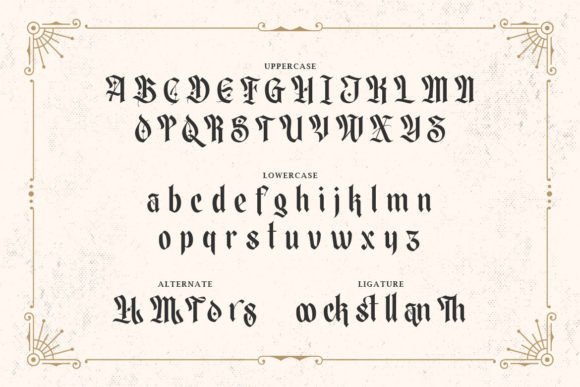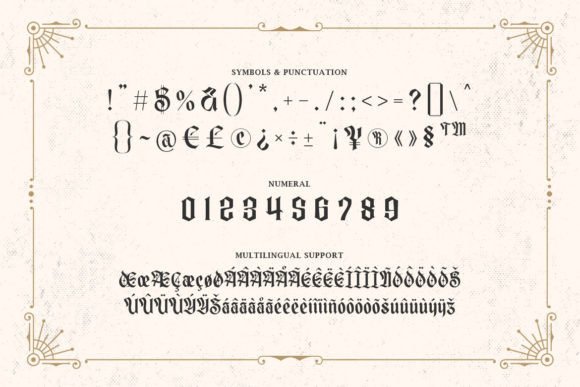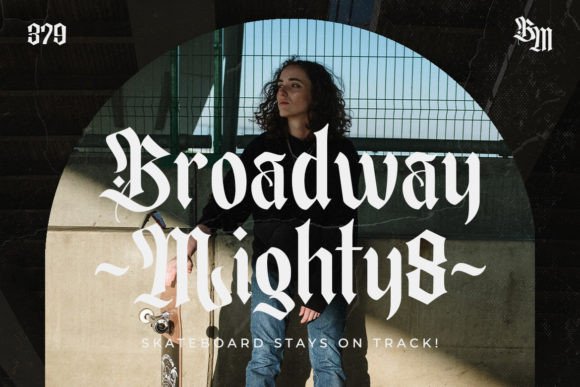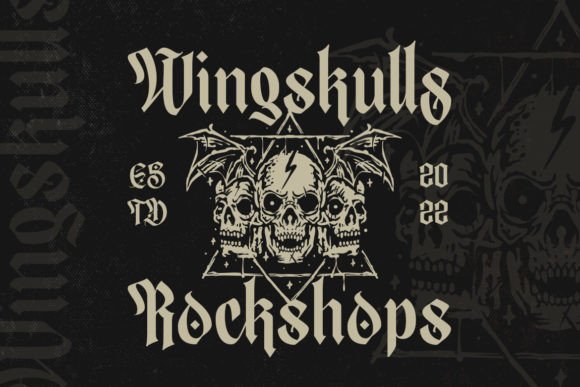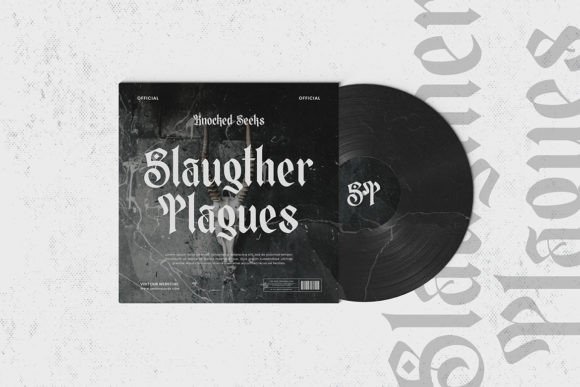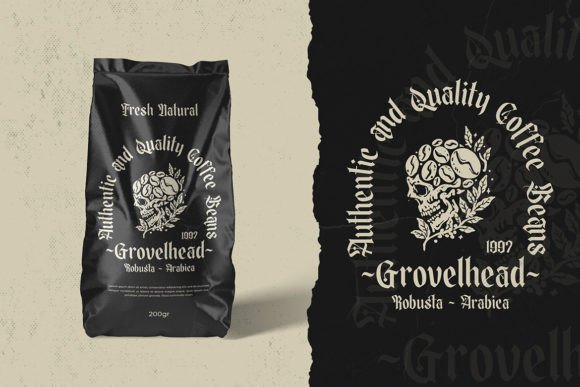
Introduction to Mirrorster Font
As designers, we’ve all been there – stuck on a creative project, searching for that perfect font to elevate our design and transport our audience to a different era. Perhaps it was a vintage-inspired logo, a Gothic-themed invitation, or a branding campaign for a heritage-inspired business. Whatever the project, the right font can make all the difference. For those seeking a timeless and elegant solution, we’d like to introduce you to the “Mirrorster Font” – a stunning blackletter typeface that exudes sophistication and tradition.
With its intricate and bold letterforms, “Mirrorster Font” is a valuable addition to any designer’s toolkit. Whether you’re working on a high-end design project or simply looking for a high-quality font to enhance your creative work, this typeface is sure to captivate your audience with its classic charm. And the best part? You can download it for free, perfect for designers on a budget or those who want to add a touch of elegance to their designs without breaking the bank.
Key Features of Mirrorster Font
- High-quality design resource ideal for creative projects, offering a unique aesthetic.
- Perfect for use in digital design, graphic design, and UI/UX design, offering a versatile and stylish font option.
- Supports a wide range of languages, making it a valuable resource for designers working on multilingual projects.
Honest Review: Mirrorster Font
I recently stumbled upon the Mirrorster Font while searching for the perfect design resource for a creative project. As a designer, I’m always on the lookout for high-quality fonts that can elevate my work. And let me tell you, Mirrorster Font did not disappoint.
- ✨ The Mirrorster Font has a unique and modern aesthetic that adds a touch of sophistication to any design.
- ✨ The font is highly customizable, making it perfect for designers who want to add a personal touch to their work.
However, there are a few limitations to consider. ⚠️ The font may not be suitable for all types of design projects, particularly those that require a more traditional or classic look. Additionally, the font’s transparent background can sometimes make it difficult to read, especially on busy or cluttered designs.
Overall, I’m impressed with the Mirrorster Font and would definitely recommend it to designers looking for a high-quality, modern font for their creative projects. With its unique design and high level of customization, it’s a valuable addition to any design resource library.
The Mirrorster Font is a high-quality design resource ideal for creative projects requiring a unique and stylish touch. With its transparent background, this font can be easily integrated into various design platforms.
To get the most out of the Mirrorster Font, experiment with different font sizes, colors, and combinations to create a unique look. You can also use it in conjunction with other design elements to create a cohesive and stylish design.
The Mirrorster Font is ideal for creative projects such as branding, packaging design, and advertising. Its unique style and transparent background make it a versatile design resource for various industries and applications.